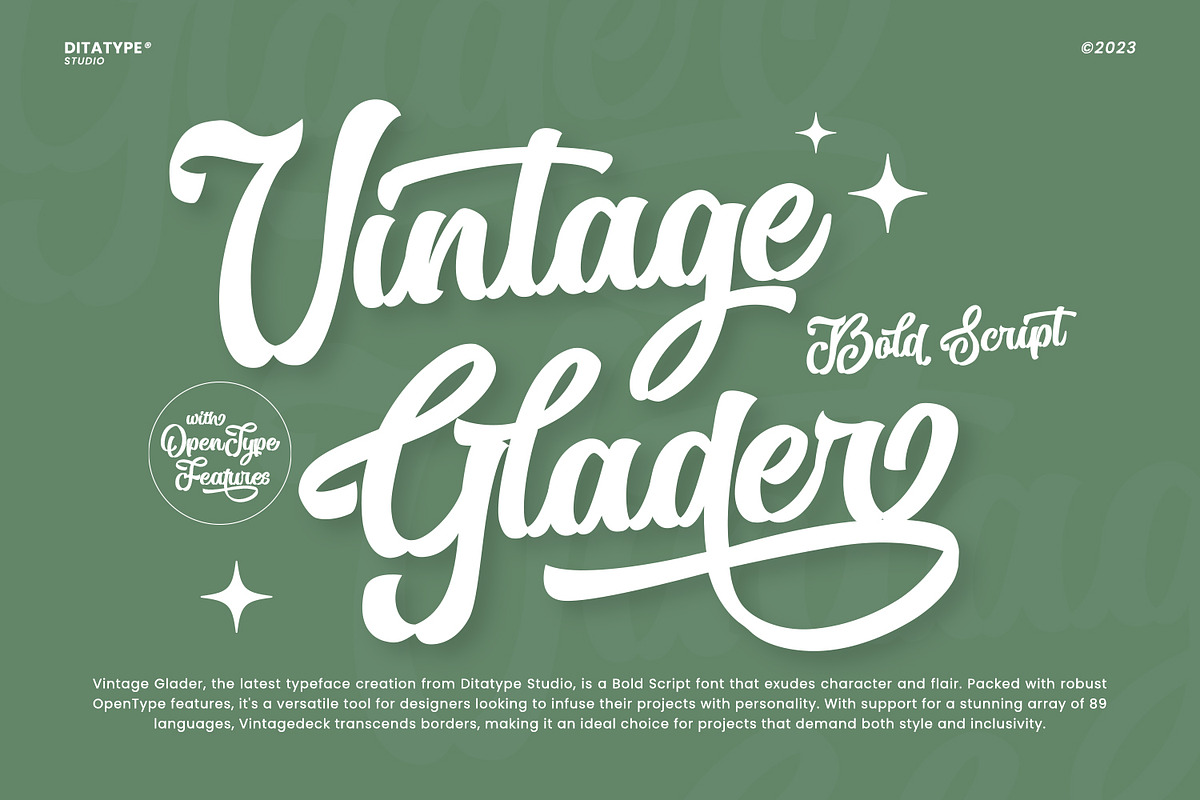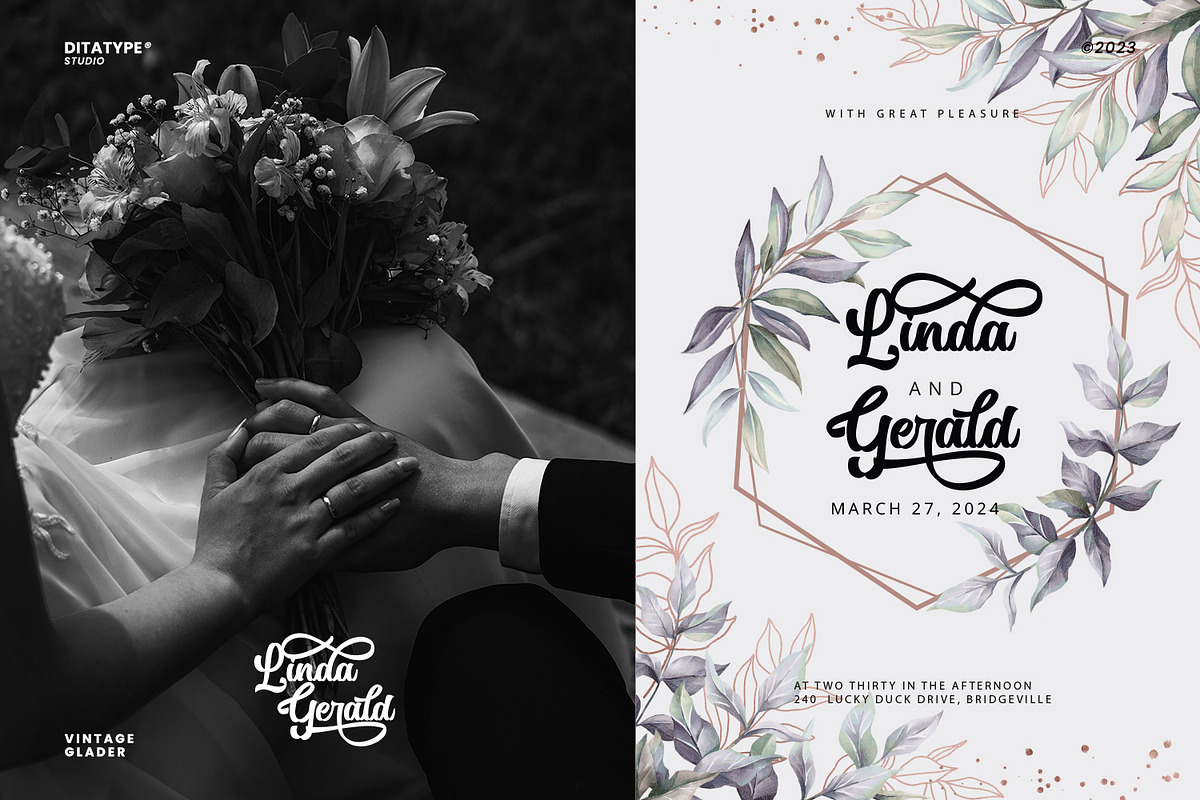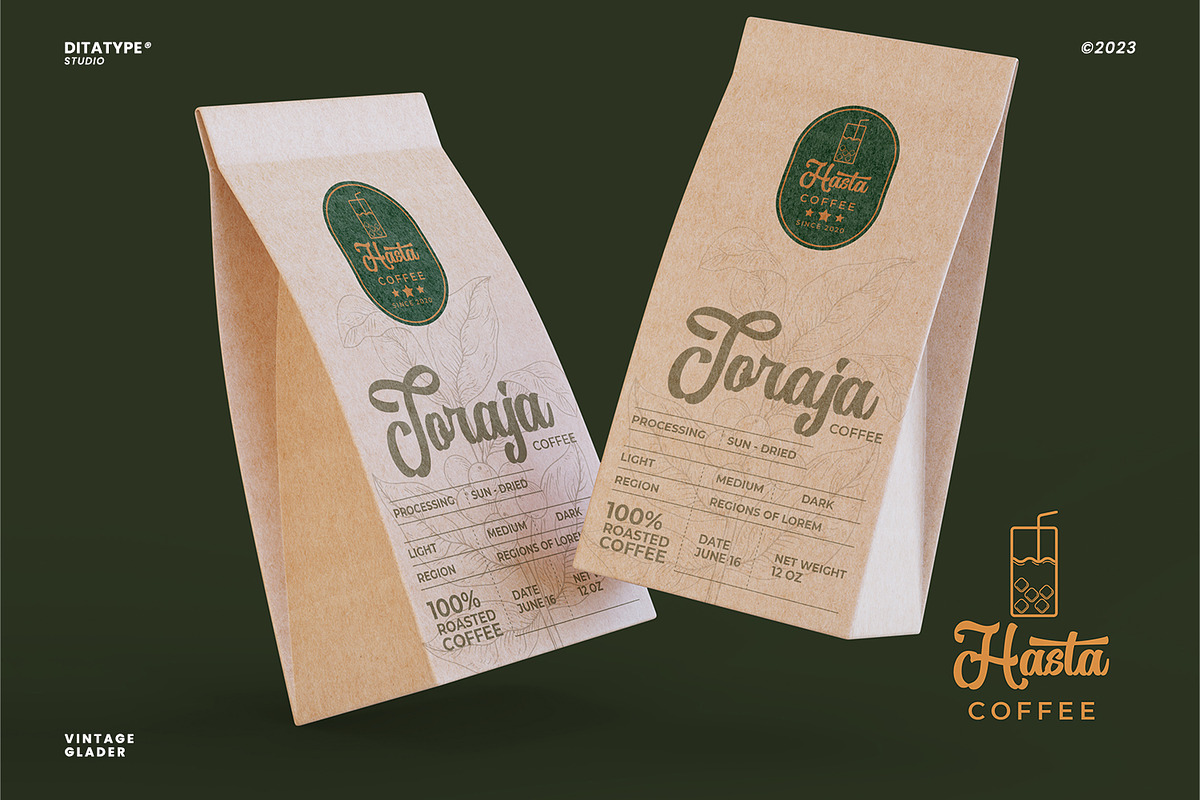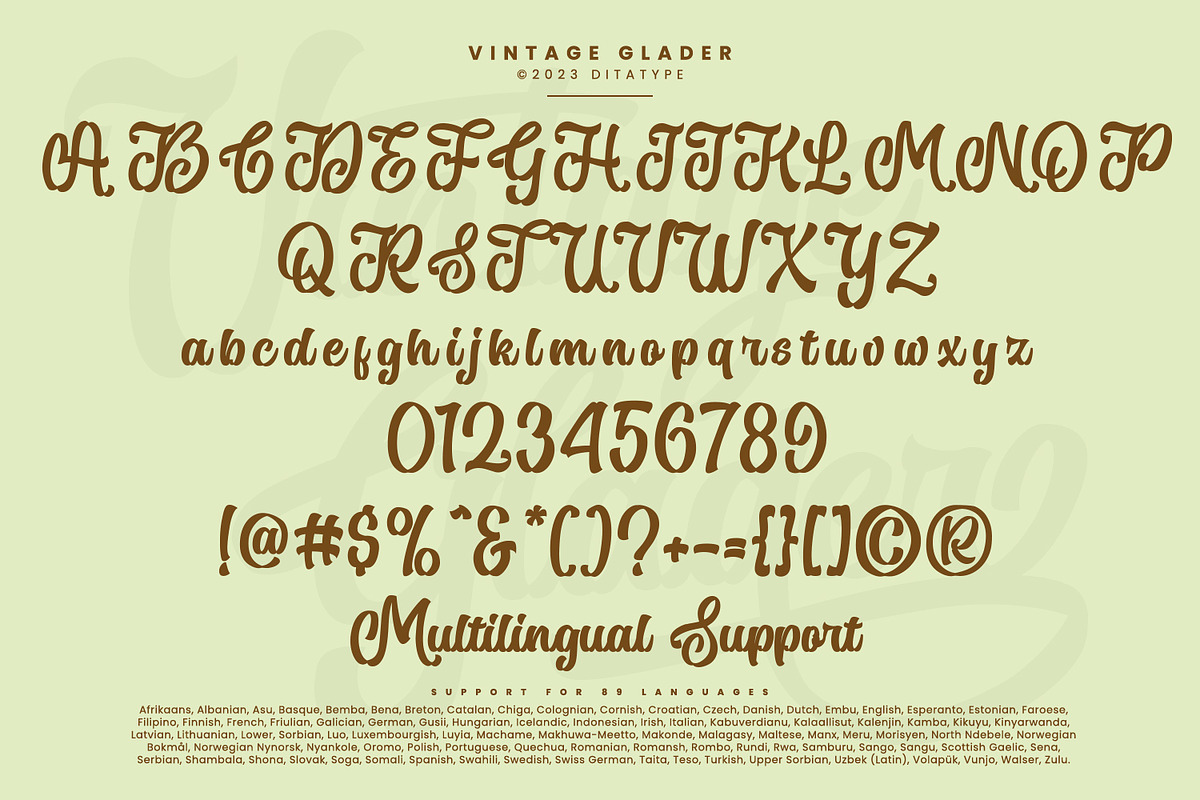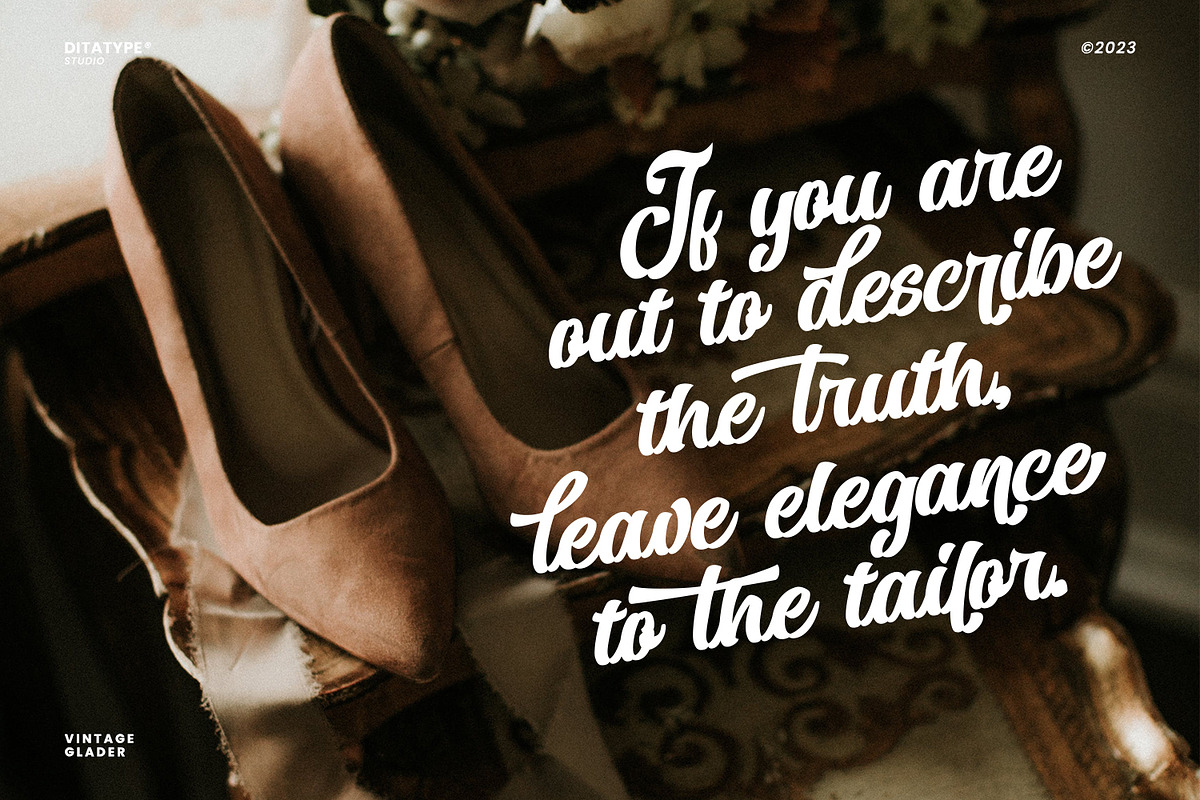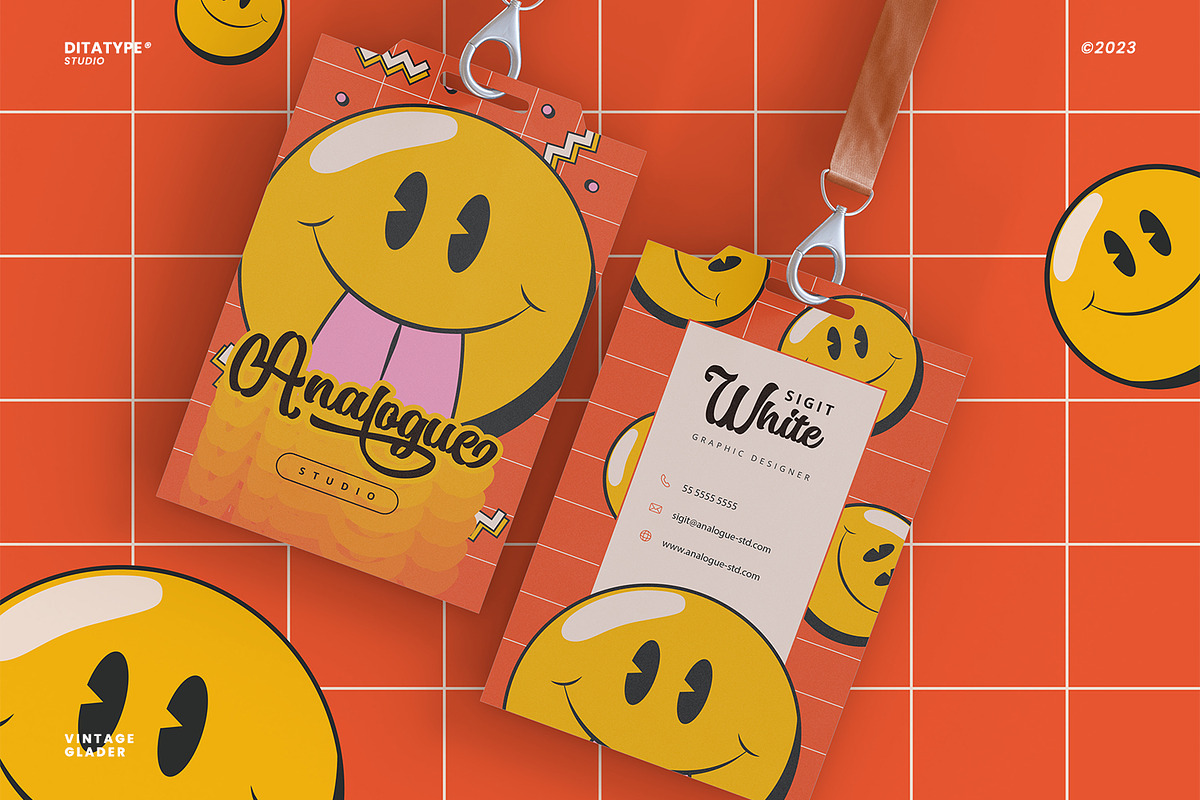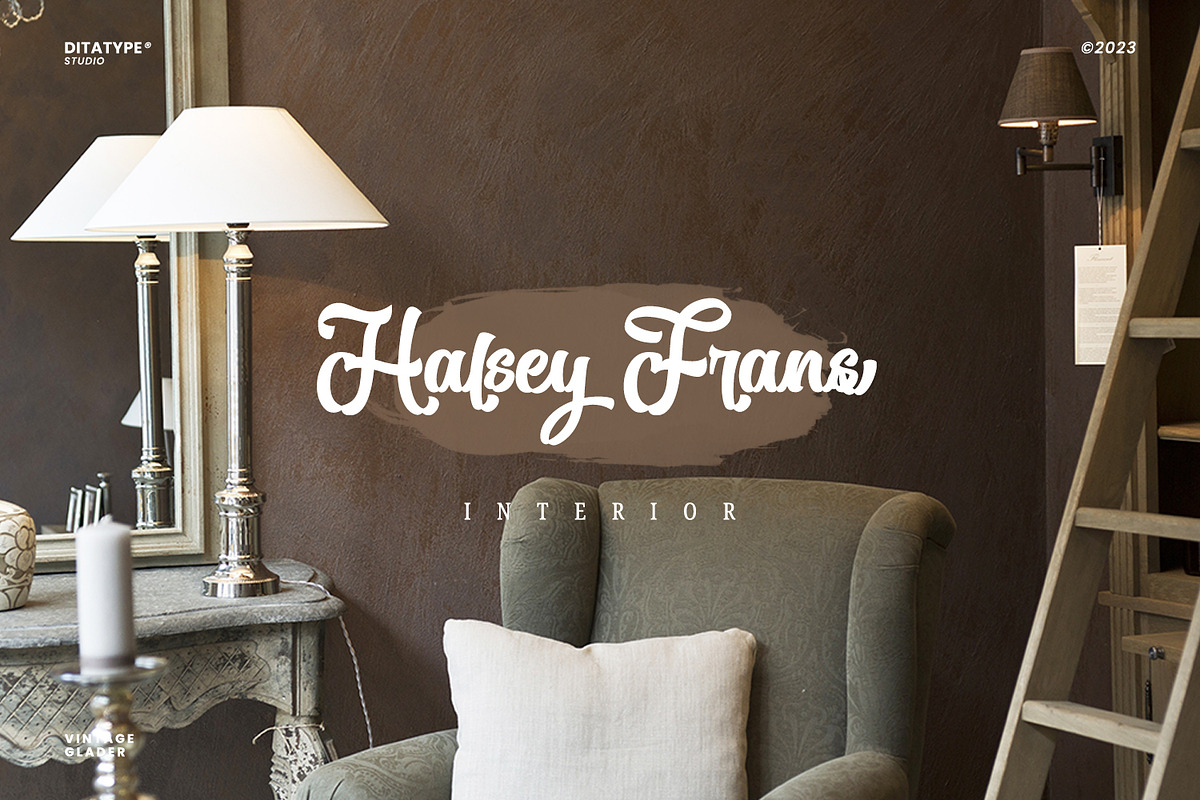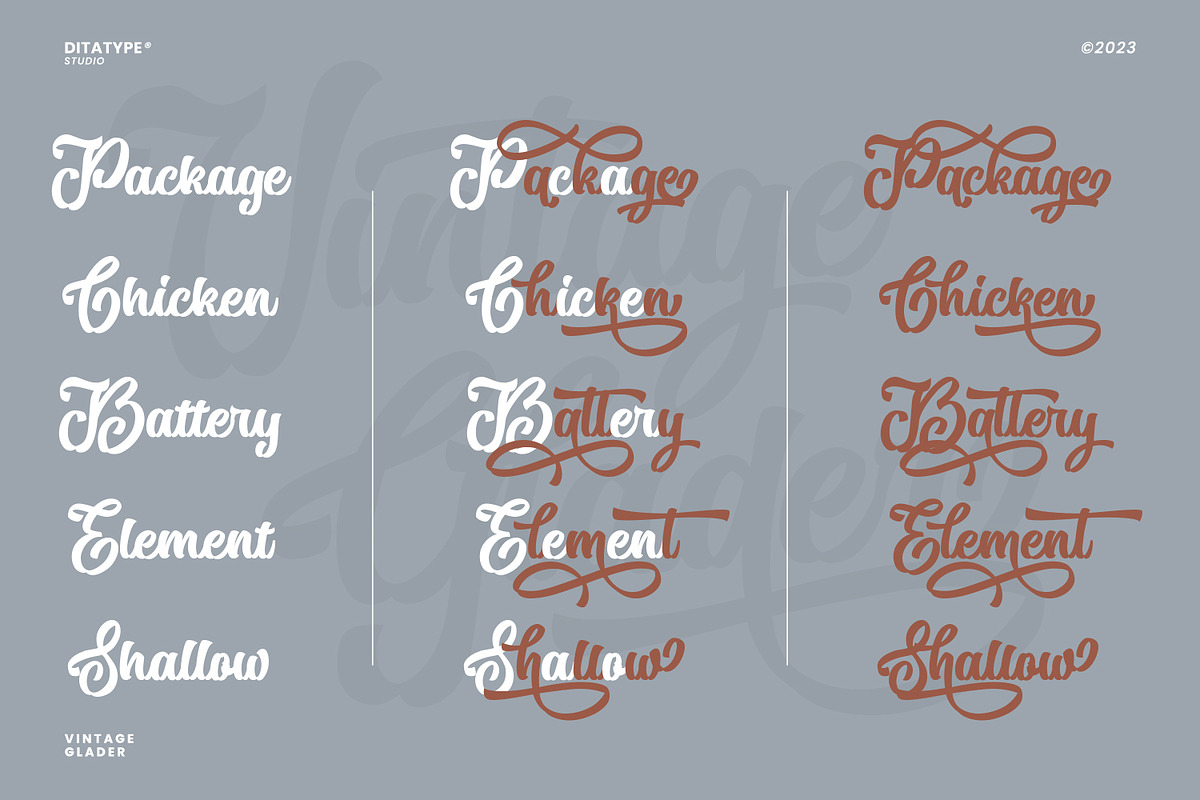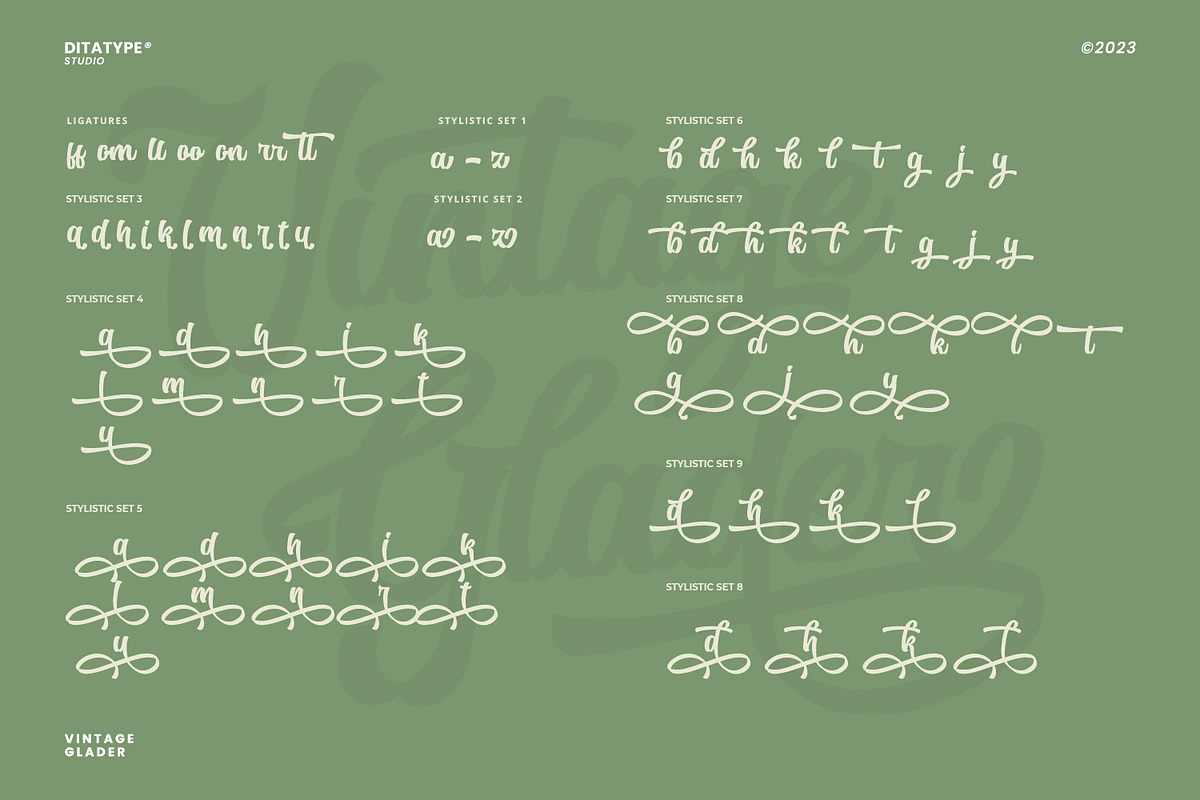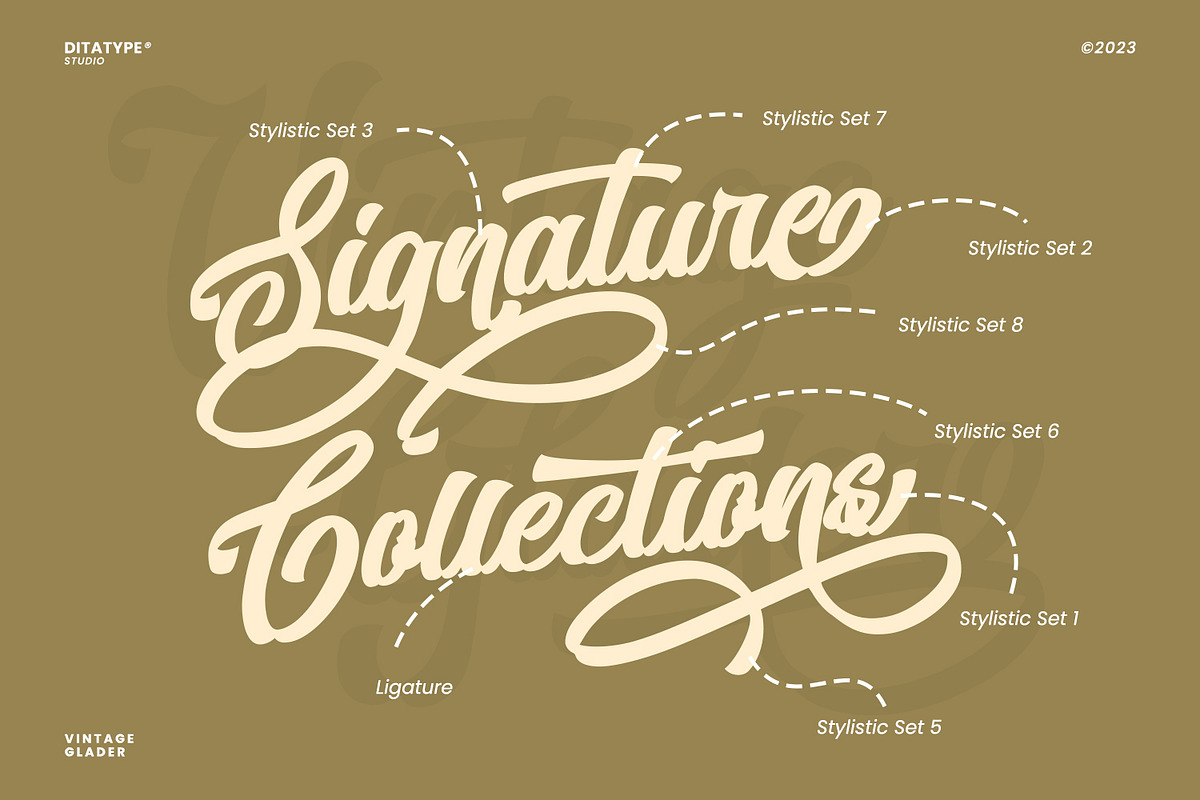
Vintage Glader
Vintage Glader is a beautifully crafted script font that exudes a timeless elegance and sophistication. Designed with a fairly thick weight, this font makes a bold statement while maintaining a classic script style. Its well-balanced proportions ensure a consistent and harmonious look across all letters, making it both visually appealing and highly readable.
One of the defining characteristics of Vintage Glader is its contrasting strokes, which add a dynamic rhythm to the text. This contrast not only enhances the overall aesthetic but also contributes to the font's excellent legibility, making it suitable for a wide range of design applications. Adding to its charm, Vintage Glader swinging ends on some letters, lending a playful yet refined touch to the script. In addition, enjoy the features here.
- Stylistic Sets
Vintage Glader fits in headlines, invitations, logos, posters, flyers, branding materials, greeting cards, print media, and many more designs. Find out more ways to use this font by taking a look at the font preview.